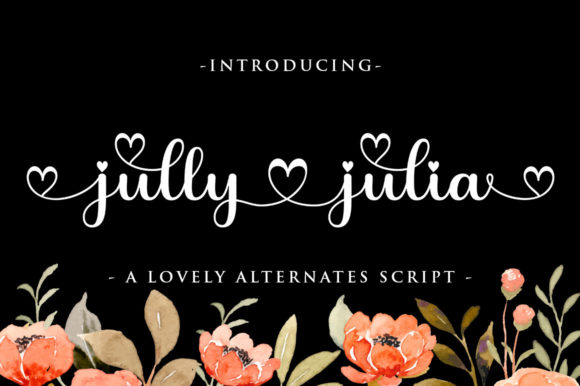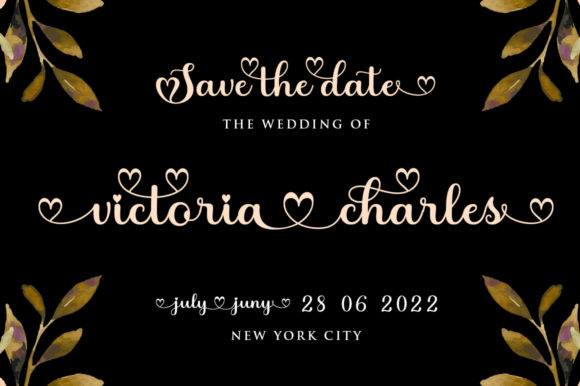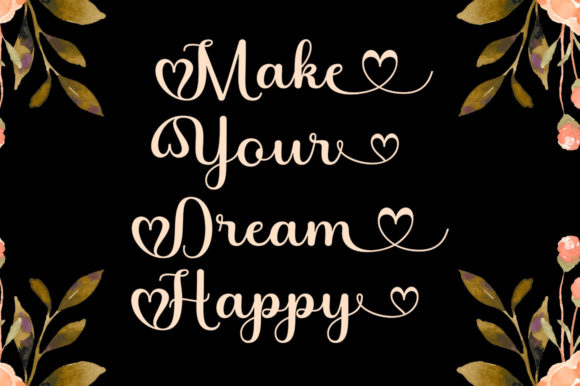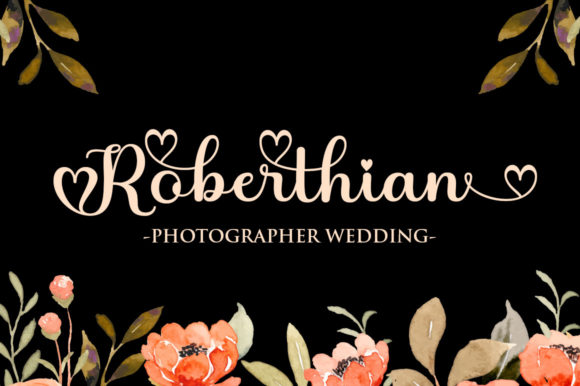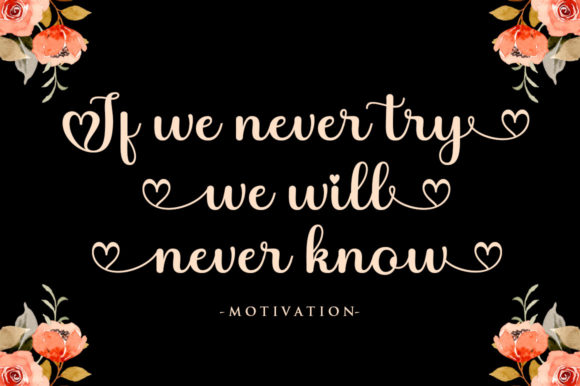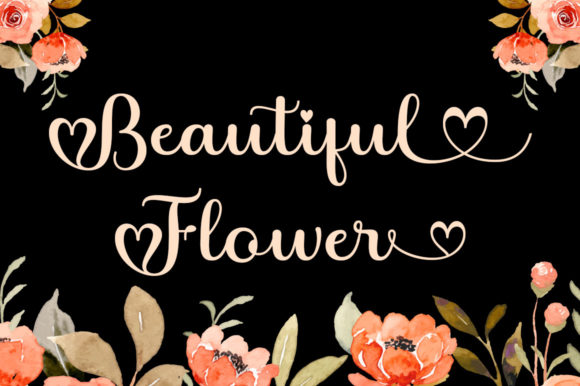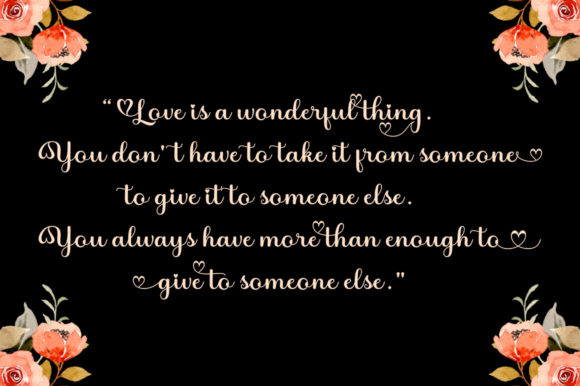
Jully Julia Font
About Jully Julia Font
Jully Julia is a sophisticated handwritten font that’s great for delivering any message with confidence, authenticity and charm. It will elevate a wide range of crafting ideas, from cards, to branding, labels and much more.